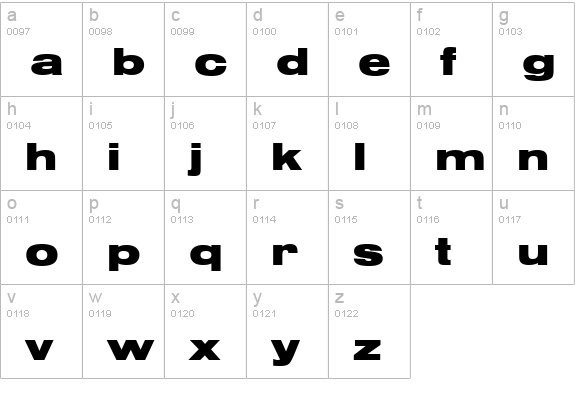
NimbusSanTBlaExt Font Details
NimbusSanTBlaExt is a sleek and modern font that exudes sophistication and elegance. Its clean lines and balanced proportions make it ideal for a wide range of design projects, from branding to editorial layouts. The NimbusSanTBlaExt font features a versatile style that can adapt to different design themes with ease, making it a valuable addition to any designer's toolkit. With its timeless aesthetic and professional appeal, NimbusSanTBlaExt is sure to elevate the visual impact of any project it is used in. This font is freely available to download at FontsMarket.com, allowing designers to access its high-quality design without any cost. Whether you are working on a personal project or a commercial venture, NimbusSanTBlaExt offers a sophisticated and polished look that will enhance the overall design. Download NimbusSanTBlaExt today and take your designs to the next level with this stylish and versatile font.